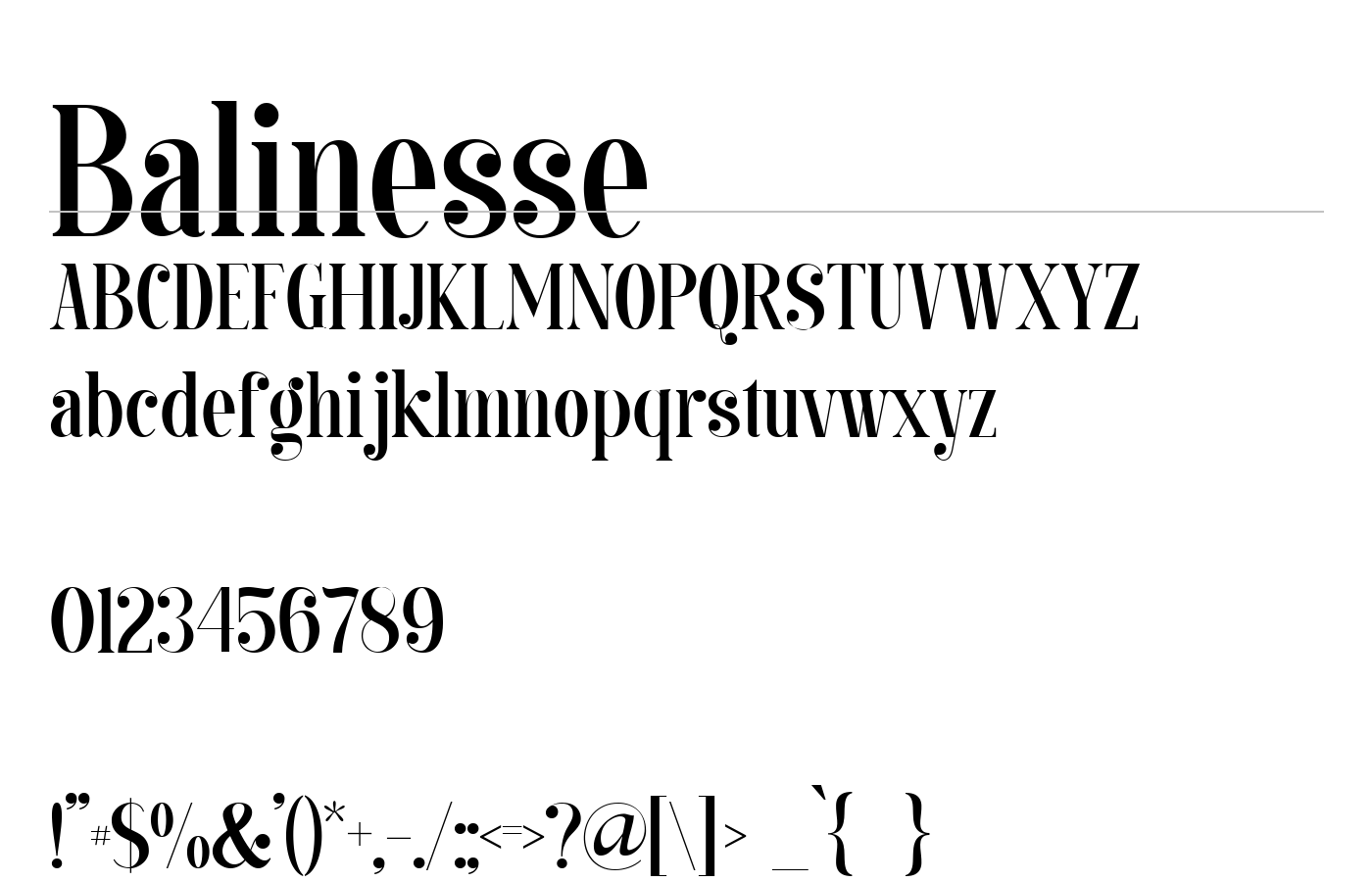
Balinesse is a striking serif font with high contrast between thick and thin strokes, featuring elegant, refined shapes and unique curled terminals that add a whimsical yet sophisticated flair. Its narrow width and tall x-height give it a strong presence, making it ideal for luxurious branding, headlines, and editorial design where a distinctive, stylish look is desired. This font blends classic elegance with modern creativity, perfect for projects aiming to stand out with a touch of artistic sophistication.
Balinesse Font
About Balinesse Font